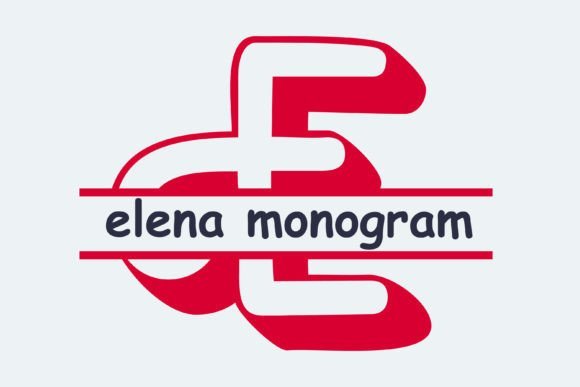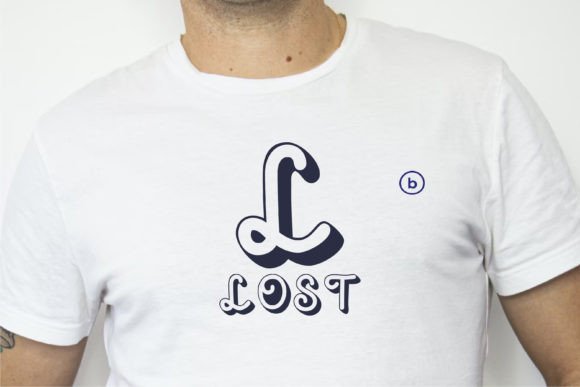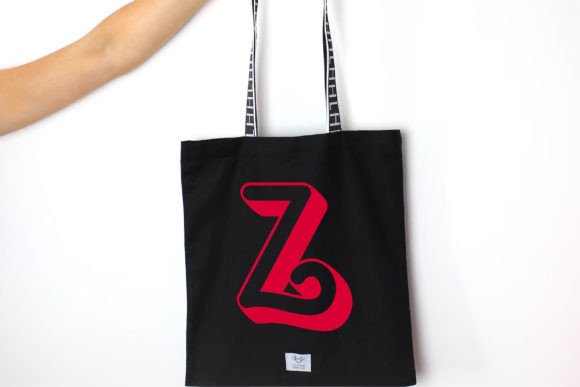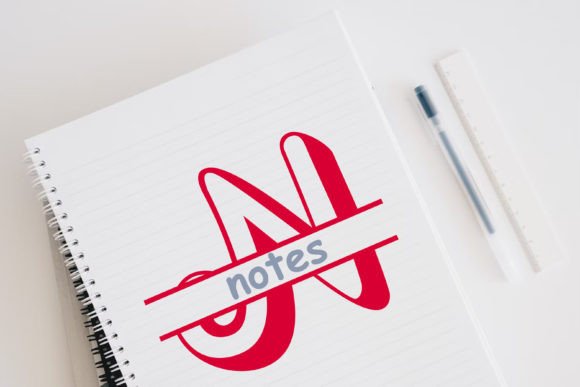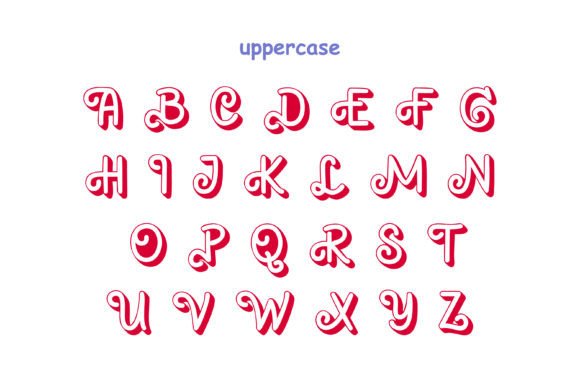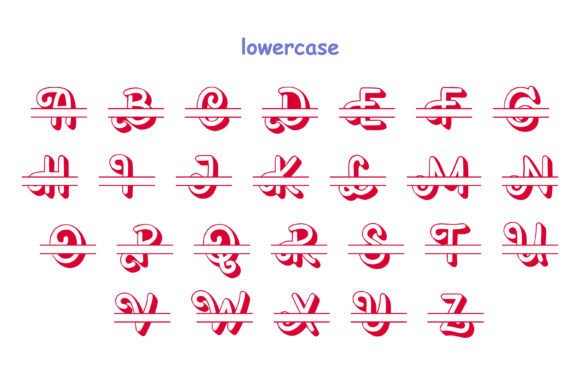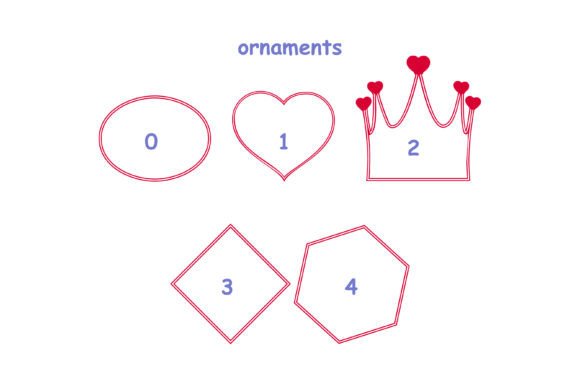
A Creative Spark: Discovering the Charm of Elena Monogram Font
As a designer, there’s no shortage of moments that spark creativity. But sometimes, it’s the simplest of inspirations that leave the greatest impression. I recall a lazy Sunday afternoon spent browsing through a vintage stationery store, surrounded by the soft glow of antique typewriters and the musty scent of aged paper. It was there that I stumbled upon a beautiful monogram font that would change the way I approach design forever.
The Elena Monogram Font is a delightful, hand-drawn script that exudes an authentic, homespun charm. Its purpose is to bring warmth and personality to your designs, making it perfect for creating beautiful stationery art, eye-catching social media posts, and adorable greeting cards. For designers, the Elena Monogram Font is a valuable asset, offering a unique and versatile tool to add a touch of whimsy to any project.
Elena Monogram Font Key Features
- Font Style: Elegant, Script, Monogram
- Unique Characteristics: Hand-drawn design, elegant curves, and intricate details make it perfect for weddings, anniversaries, and other special occasions
Elena Monogram Font Review
Overall, I think the Elena Monogram Font is a beautiful and elegant choice for any design project. ✨ The font’s intricate details and subtle flourishes add a touch of sophistication and refinement, making it perfect for high-end brands or luxury products.
One of the things I love about this font is its versatility. ✨ It can be used for a variety of applications, from logos and headings to body text and even digital displays. The font’s clean lines and classic design make it easy to read and understand, even at small font sizes.
However, I do have a few concerns about the font’s limitations. ⚠️ Firstly, the font may not be suitable for projects that require a more playful or casual tone, as it can come across as too formal or stuffy. Additionally, the font’s complexity may make it difficult to pair with other fonts or design elements.
Here are some of the font’s key features:
- Elegant and sophisticated design
- Versatile and suitable for a variety of applications
- Clean lines and classic design make it easy to read and understand
- May not be suitable for projects that require a more playful or casual tone
- Can be difficult to pair with other fonts or design elements
Overall, I think the Elena Monogram Font is a great choice for designers who want to add a touch of elegance and sophistication to their projects. With its versatility and classic design, it’s sure to impress.
Tips for Getting the Most Out of Elena Monogram Font
Use Elena Monogram Font for:
- Creatively designing logos and branding materials.
- Adding a touch of elegance to invitations and event materials.
- Creating unique and eye-catching typography for digital and print media.
Elena Monogram Font is ideal for:
- Corporate branding and marketing materials.
- Social media graphics and advertising.
Alternatives to Elena Monogram Font
Carolyna Pro is a modern script font that offers a similar elegant feel to Elena Monogram Font. It’s perfect for use in branding, invitations, and wedding stationery. While it’s more versatile than Elena Monogram Font, Carolyna Pro lacks the intricate details and monogrammed feel that Elena Monogram Font is known for.
Alex Brush is a handwritten font that shares a similar whimsical feel with Elena Monogram Font. It’s ideal for use in creative projects, such as art prints, book covers, and greeting cards. Compared to Elena Monogram Font, Alex Brush is more casual and less formal, making it suitable for a wider range of applications.
3. Ostrich Sans
Ostrich Sans is a sans-serif font that offers a more contemporary feel compared to Elena Monogram Font. It’s perfect for use in digital projects, such as websites, apps, and social media graphics. While it lacks the elegant feel of Elena Monogram Font, Ostrich Sans is highly legible and versatile, making it a great alternative for modern designs.